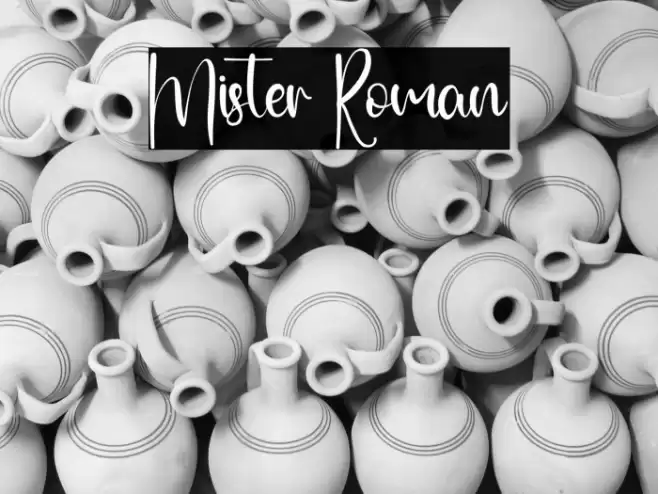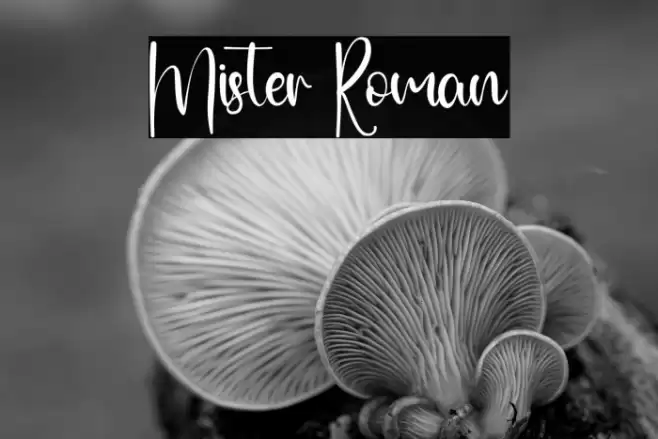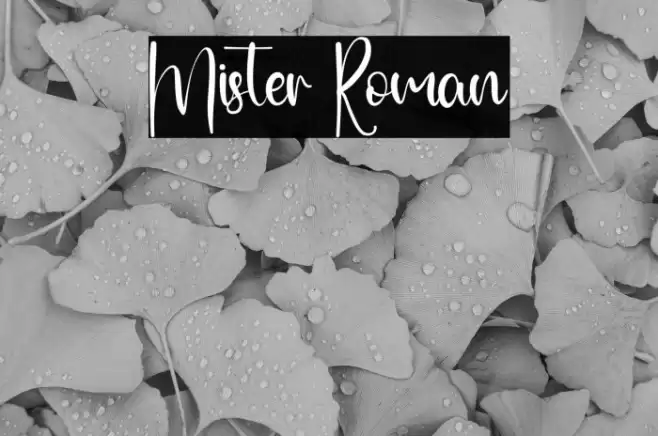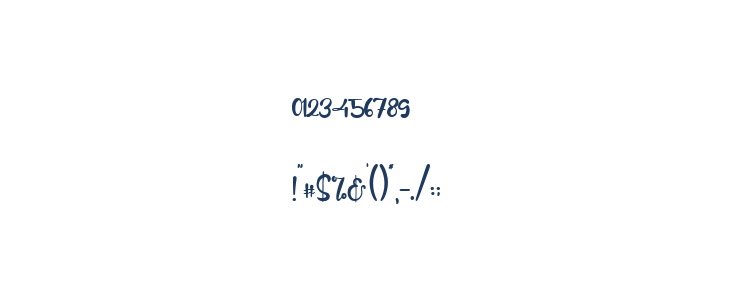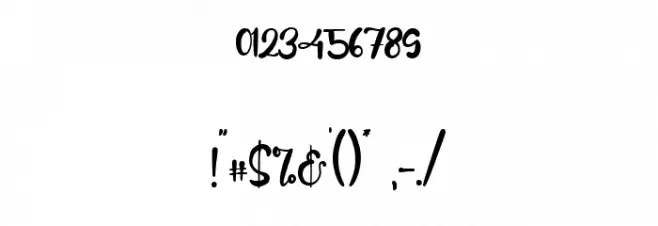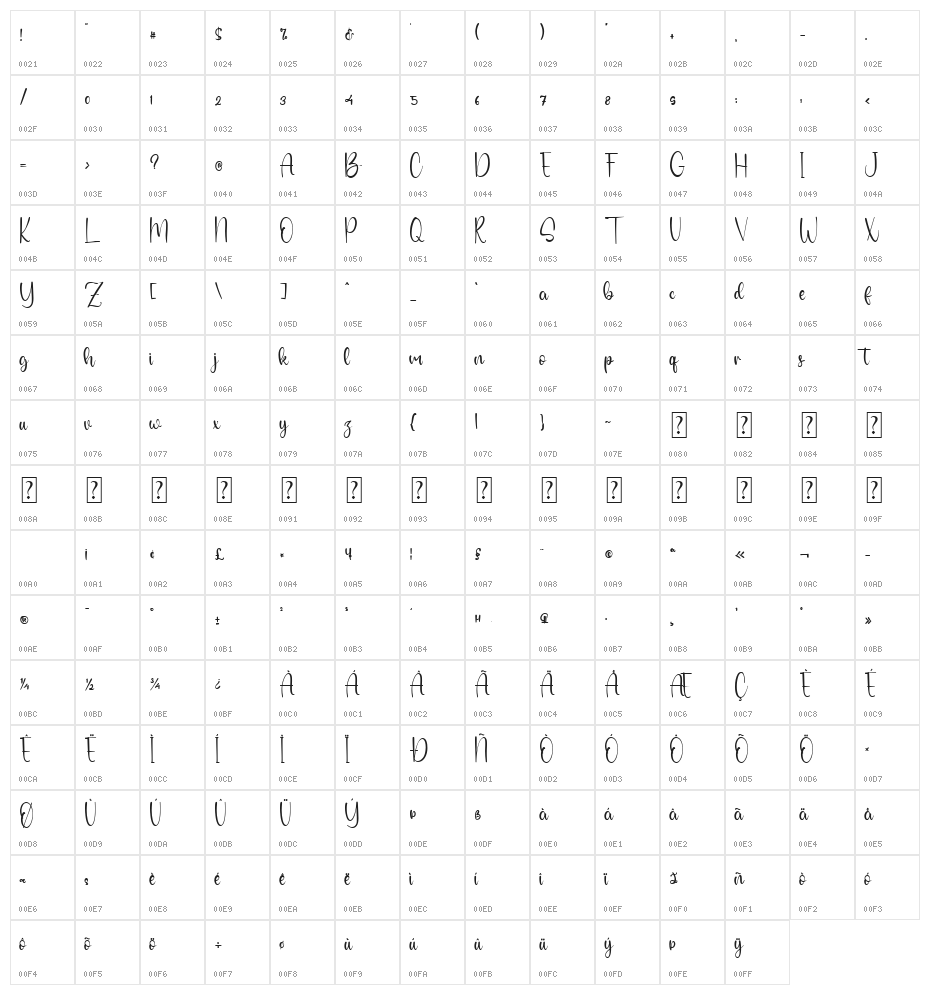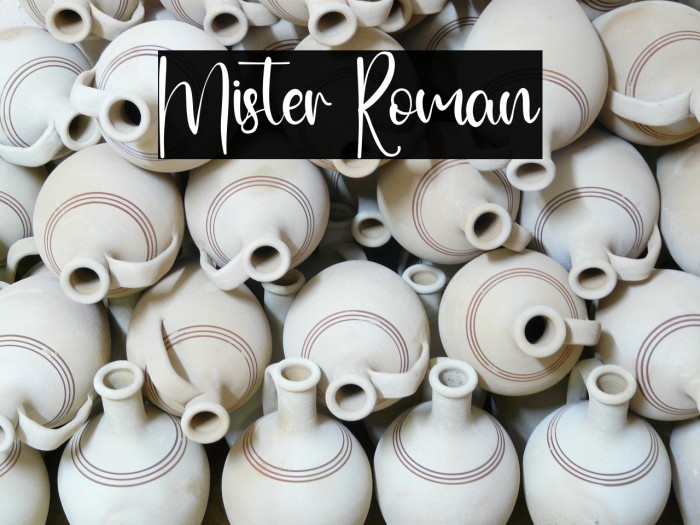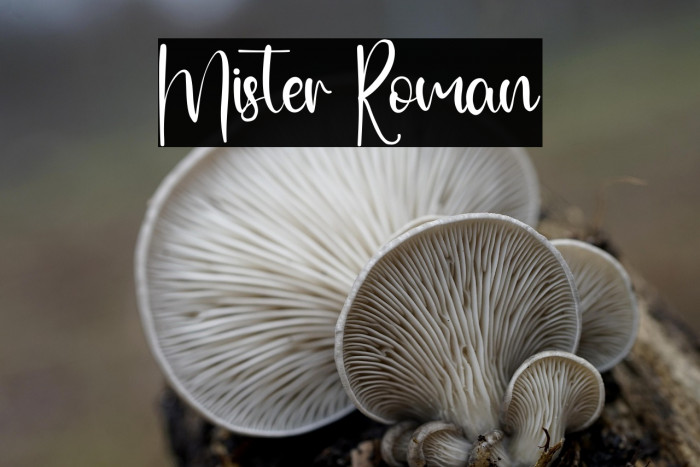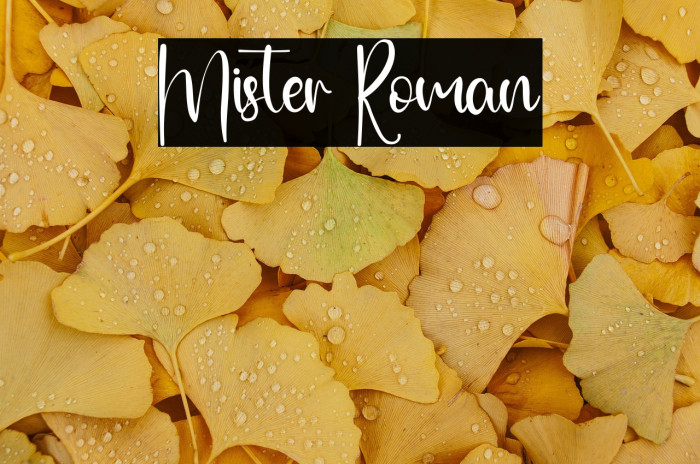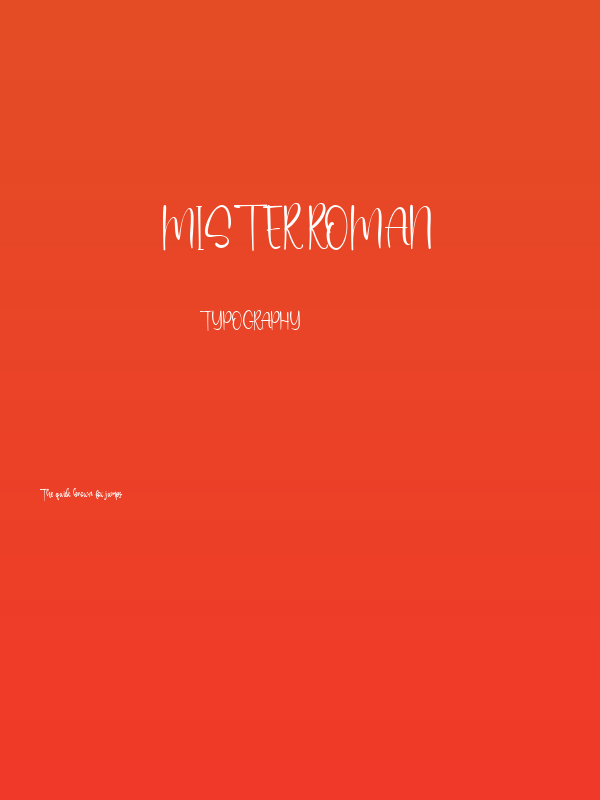
Mister Roman Font
Mister Roman Description
This font features a playful and whimsical style with a handwritten appearance. The uppercase letters are tall and slender with a slight slant, giving them an elegant yet casual look. The lowercase letters are more rounded and connected, adding to the handwritten feel. The numbers and special characters maintain the same playful aesthetic, making the font versatile for various creative projects. Its unique character shapes and flowing lines make it stand out, perfect for adding a personal touch to any design.
A playful, handwritten-style font with elegant, flowing lines from Regular fonts.
- Proposed Projects: Ideal for greeting cards, invitations, personal branding, and creative projects that require a personal touch.
- Use Case: Logos, Headlines, Creative projects